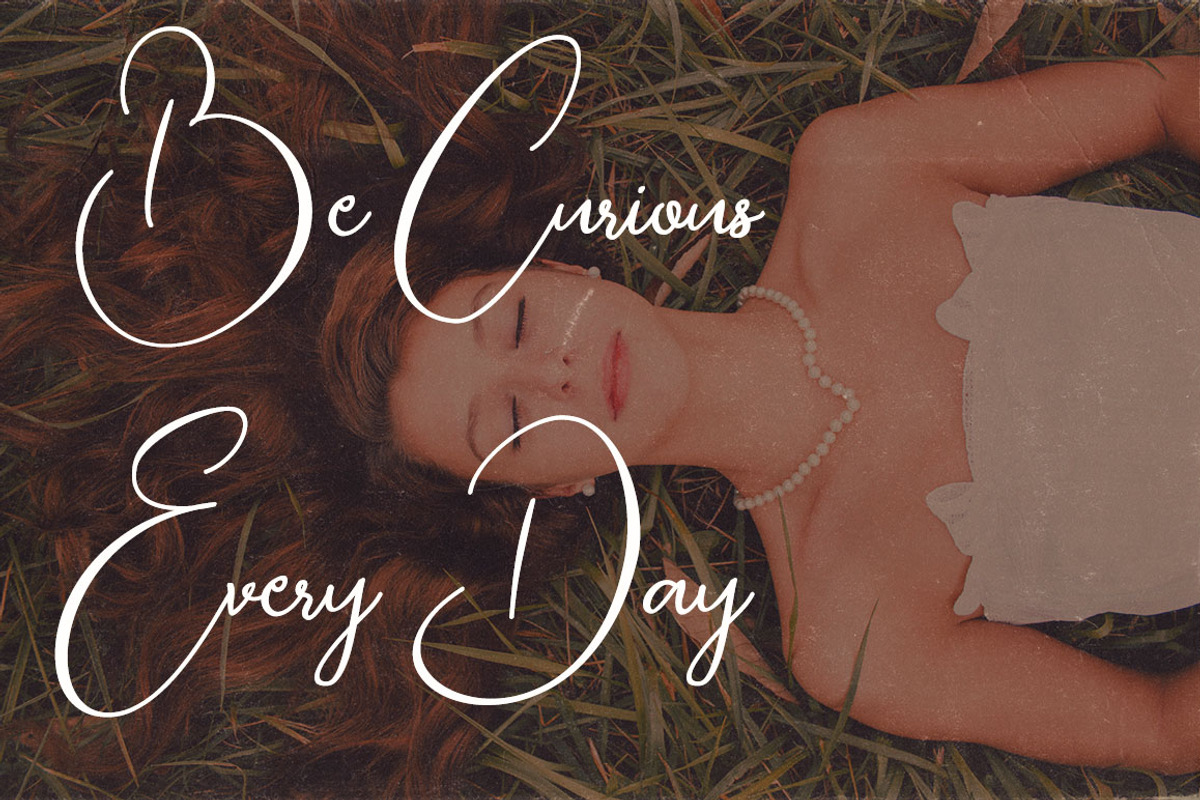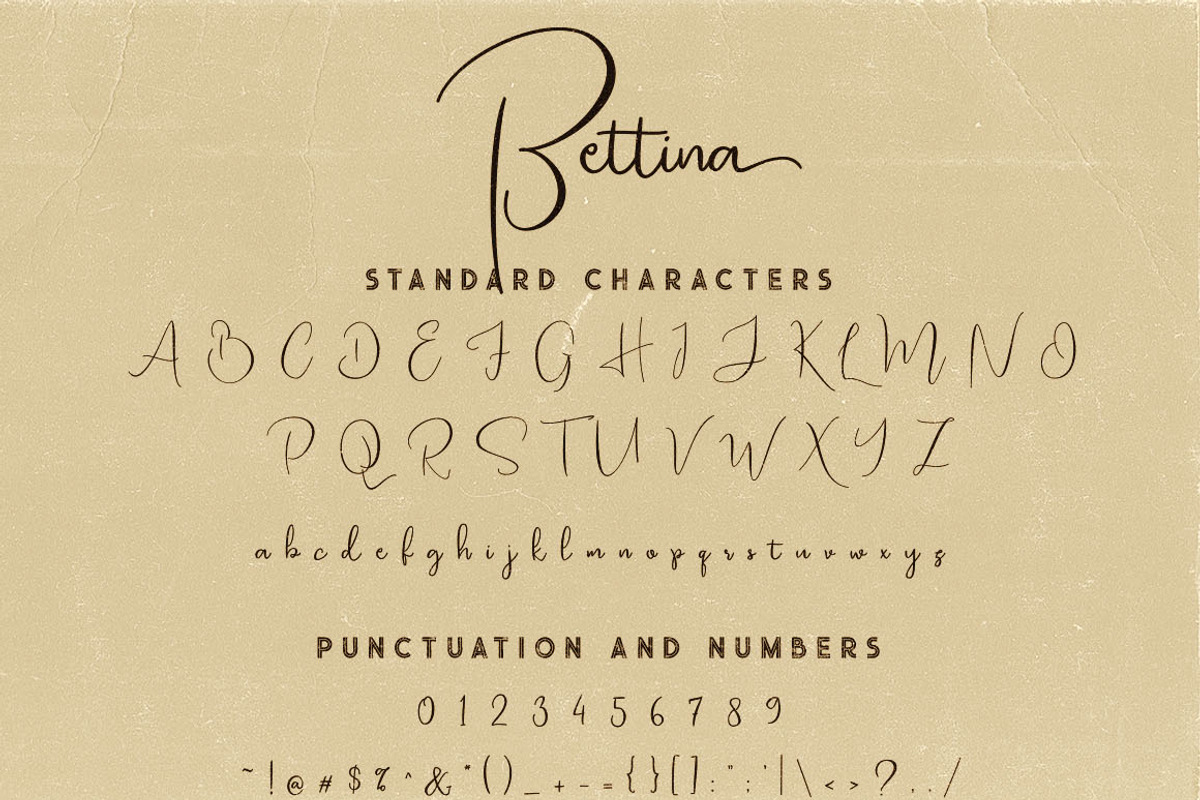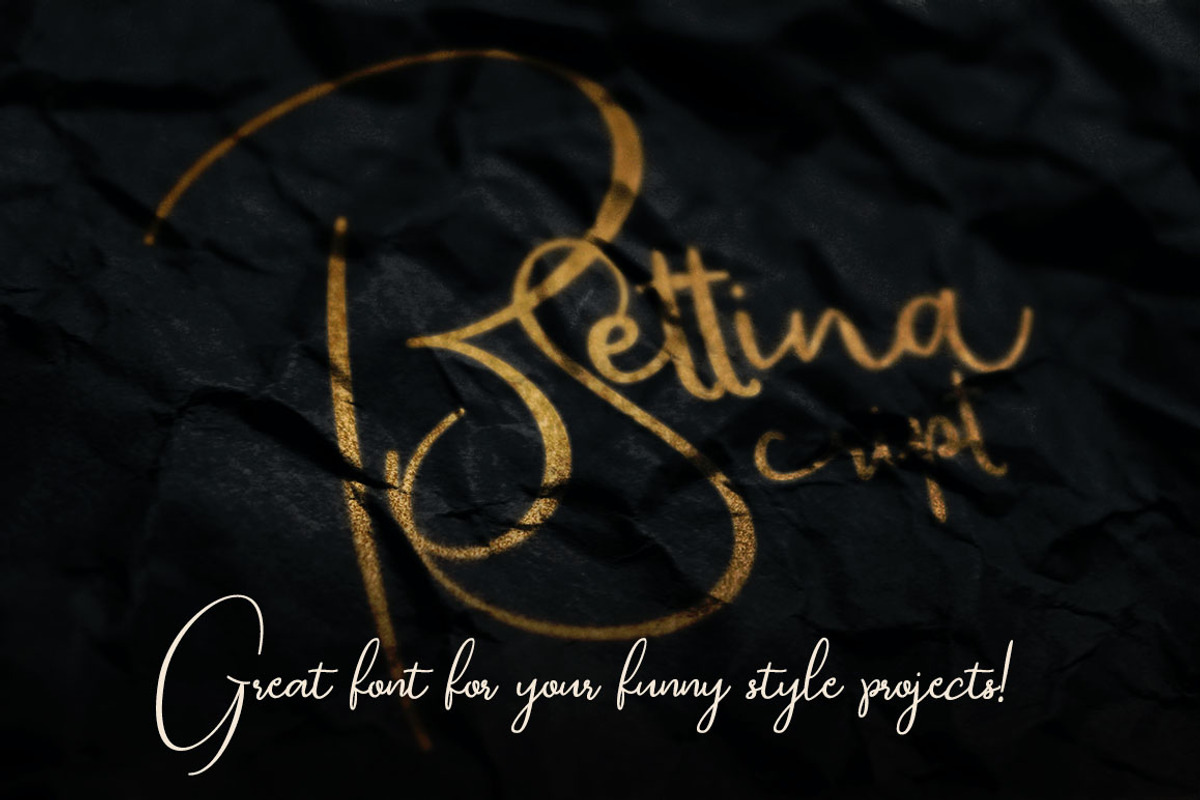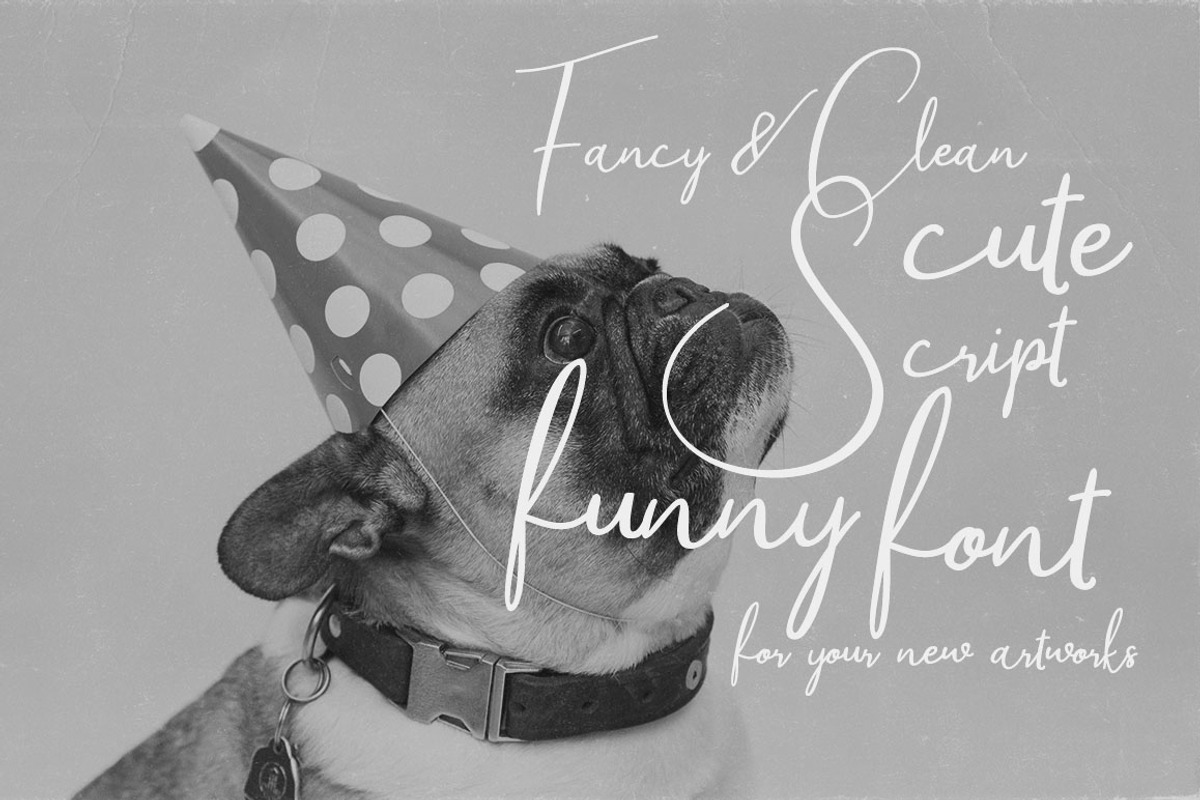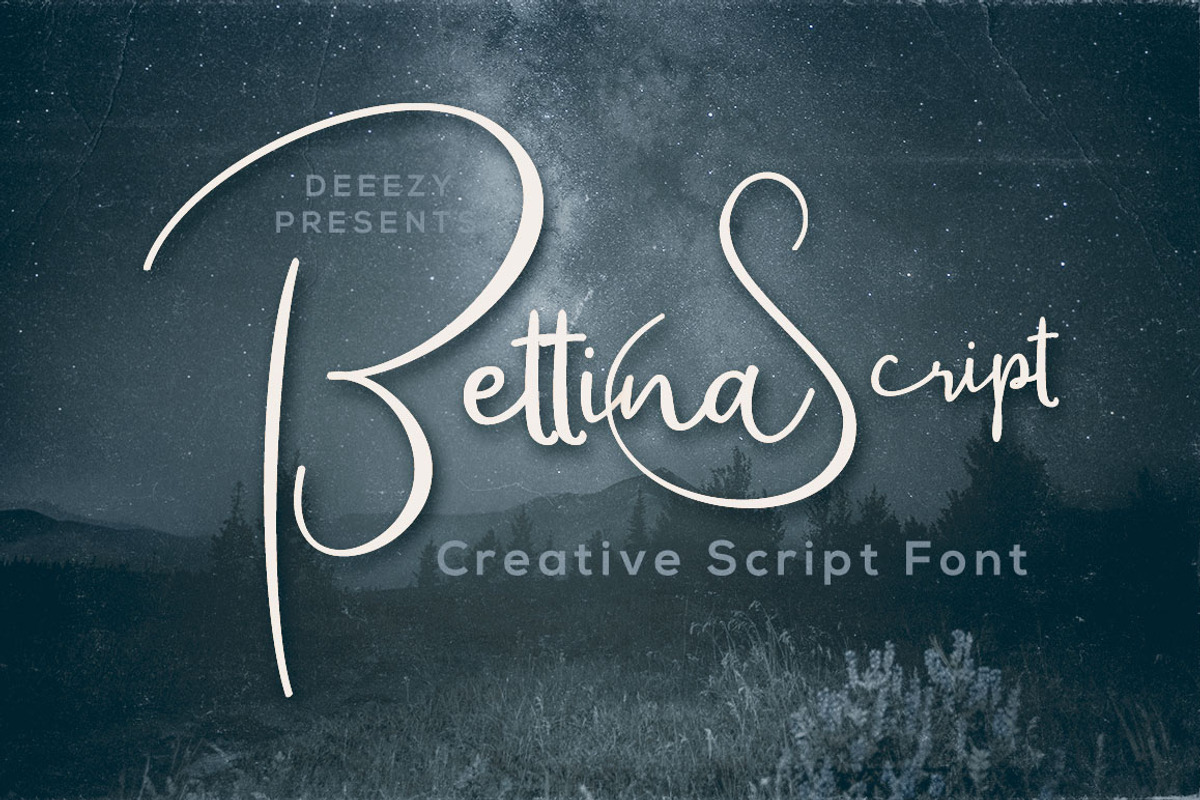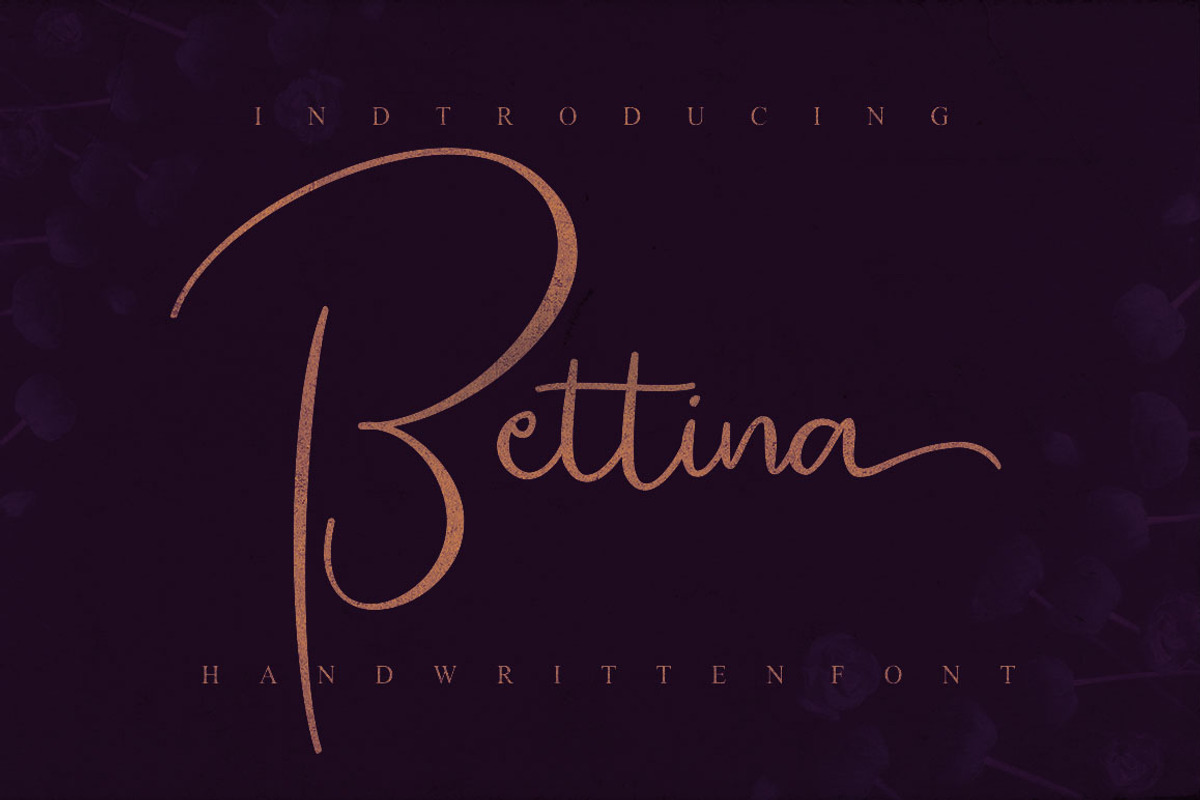
Bettina Script Font
Clean and fancy style script font for your new projects. With multi language support and lot of stylistic alternates.
- With multi language support and lot of stylistic alternates.
Why Bettina Script Font is worth a look
Bettina Script Font by Deeezy fits naturally into Branding, posters, packaging, typography.